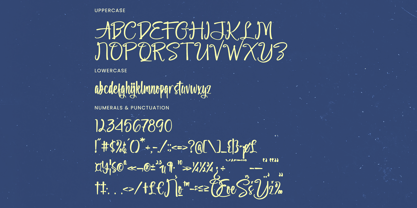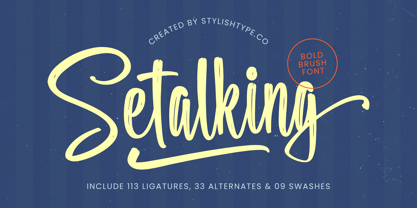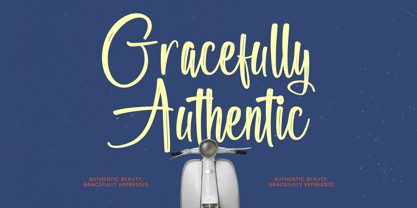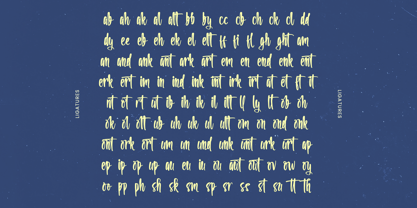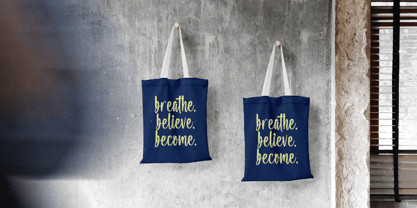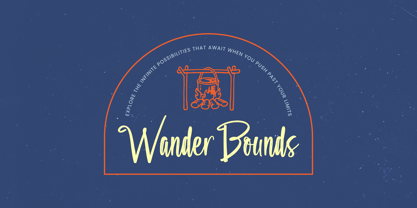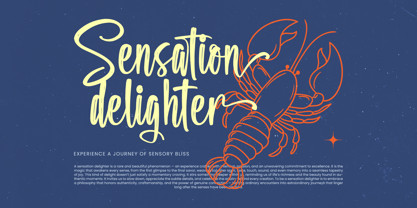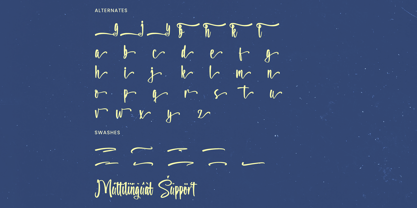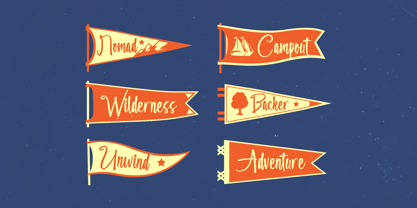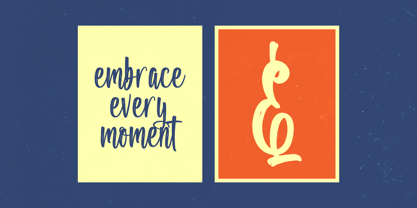
Setalking
par Stylishtype Studio
La famille de polices Setalking a été conçue par Heru Utama Putra et publiée par Stylishtype Studio. Setalking contient 2 styles et options de package familial.
Setalking - Bold Brush Font , from Stylishtype , Suitable for any projects such as: logos, branding projects, homeware designs, product packaging, mugs, quotes, posters, shopping bags, t-shirts, book covers, name card, invitation cards, greeting cards, label, photography, watermark, special events, and all your other luxury and beautiful projects that need a Luxury Script taste.